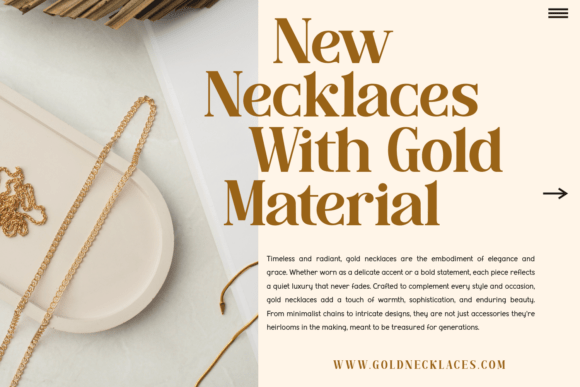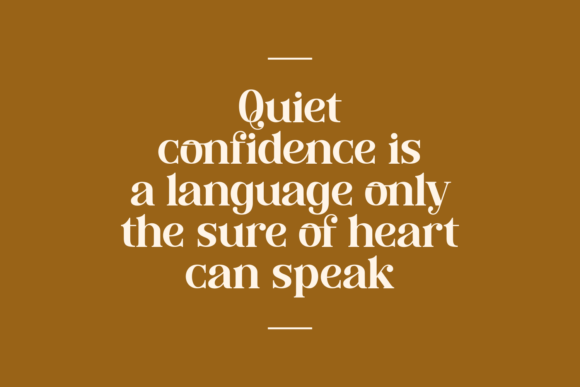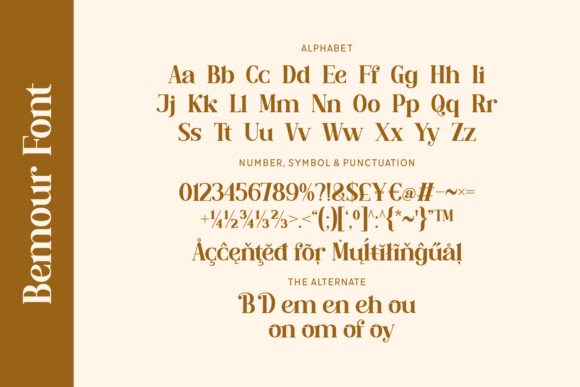
The Bemour Font: A Designer’s Dream for Elegant Projects
I still remember the frustration of working on a wedding invitation project, searching for the perfect font that exuded elegance and sophistication. The client wanted something unique, yet timeless, and I was determined to deliver. That’s when I stumbled upon the Bemour font, a beautiful modern serif typeface that stole my heart. In this article, I’ll share my experience with Bemour, its features, and how to make the most of it in your designs.
An Honest Review of Bemour Font
What I Love About Bemour ✨
- 💫 Soft swashes and refined curves that add a touch of elegance to any design
- ✅ Perfect for branding, wedding invitations, packaging, and lifestyle blogs
- 🎨 Highly versatile, suitable for both digital and print projects
- 🔍 Exceptional legibility, even at small font sizes
- ⚠️ Limited availability of stylistic alternates, which might not appeal to designers seeking more variations
- ⚠️ Some users might find the font’s softness too subtle, requiring additional embellishments
The Story Behind Bemour Font
Bemour was designed by a team of typographers who sought to create a modern serif font that exudes warmth and sophistication. Inspired by classic serif fonts, they added a touch of softness and elegance to create a unique typeface. The result is a versatile font perfect for a wide range of design projects.
| What makes Bemour font suitable for wedding designs? | Bemour’s elegant swashes, refined curves, and sophisticated personality make it an excellent choice for wedding invitations, programs, and other stationery. |
| Is Bemour font suitable for body text? | While Bemour is an elegant font, its softness and swashes might make it less suitable for long-form body text. Consider using it for headings, titles, or short paragraphs. |